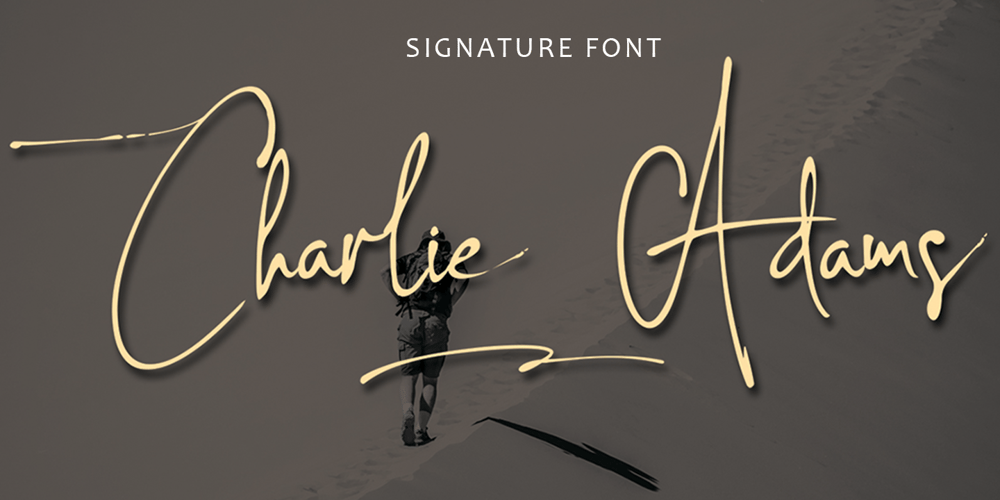
Charlie Adams Font Family was designed by Teuku Muhammad Zaki and published by Zaki Creative. Charlie Adams contains 1 styles and family package options. Charlie Adams Signature Handwritten consisting of a fashionable sophisticated signature-style script with its own unique curves and an elegant inky flow.Charlie Adams Signature Handwritten is perfect for branding projects, logo, wedding designs, social media posts, advertisements, product packaging, product designs, label, photography, watermark, invitation, stationery and any projects that need handwriting taste.Ornaments are in the Charlie Ornaments garis file, please install Charlie Ornaments garis then click the letters a b c d e to apply. Please email me so I can send the ornament font for free, because it can’t be uploaded at all.What’s Included :-Standard & Multilingual glyphs-Alternates-Swash-Works on PC & Mac-Simple installations-Accessible in the Adobe Illustrator, Adobe Photoshop, Adobe InDesign, even work on Microsoft Word.PUA Encoded Characters – Fully accessible without additional design software.Fonts include multilingual support for; Afrikaans, Danish, Dutch, French, German, Indonesian, Irish, Italian, Norwegian, Portuguese, Scottish, Spanish, Swedish, Swiss.